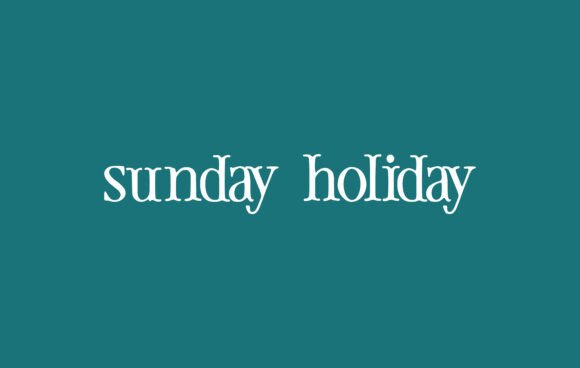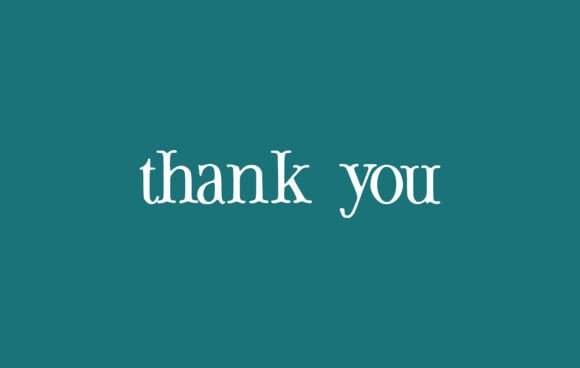
Introducing Alien Relic Font: The Ultimate Handwritten Font for Creative Designs
Are you tired of using the same old fonts for your designs? Look no further than the Alien Relic Font, an authentic handwritten font with a romantic touch that’s sure to take your creative ideas to the highest level. Expertly designed to be a true favorite among designers and crafters, this font is legible, versatile, and perfect for a wide range of applications.
What Makes Alien Relic Font So Special?
Alien Relic Font is more than just a font – it’s an experience. With its unique blend of elegance and whimsy, this font is sure to add a touch of magic to any design. Whether you’re working on a magazine headline, social media post, branding campaign, wedding invitation, or card, Alien Relic Font is the perfect choice. Its romantic touch and authentic handwritten feel make it stand out from the crowd, giving your designs a personal and human touch that’s hard to replicate with generic fonts.
Key Features of Alien Relic Font
- Authentic Handwritten Font: Alien Relic Font is a genuine handwritten font, crafted with love and care to give your designs a personal touch.
- Romantic Touch: With its elegant and whimsical feel, this font is perfect for designs that require a touch of romance and sophistication.
- Legible and Versatile: Whether you use it as a title or body text, Alien Relic Font is easy to read and understand, making it perfect for a wide range of applications.
- Perfect for Various Designs: From magazine headlines and social media posts to branding campaigns, wedding invitations, and cards, Alien Relic Font is the ultimate font for designers and crafters.
Why Choose Alien Relic Font?
With so many fonts available, why choose Alien Relic Font? Here are just a few reasons why designers and crafters love this font:
- Unique and Eye-Catching: Alien Relic Font is unlike any other font out there. Its unique blend of elegance and whimsy makes it stand out from the crowd, grabbing the attention of your audience and setting your designs apart.
- Easy to Use: Whether you’re a seasoned designer or a beginner, Alien Relic Font is easy to use and integrate into your designs.
- High-Quality Design: This font is expertly designed to ensure that it looks great in any application, from print to digital.
How to Use Alien Relic Font in Your Designs
Alien Relic Font is perfect for a wide range of designs, including:
- Magazine Headlines: Add a touch of elegance and sophistication to your magazine headlines with Alien Relic Font.
- Social Media Posts: Make your social media posts stand out with this unique and eye-catching font.
- Branding Campaigns: Use Alien Relic Font to create a consistent and recognizable brand identity.
- Wedding Invitations: Add a touch of romance and whimsy to your wedding invitations with this beautiful font.
- Cards and Stationery: Use Alien Relic Font to create beautiful and personalized cards and stationery.
In conclusion, Alien Relic Font is the ultimate handwritten font for designers and crafters. With its authentic feel, romantic touch, and versatility, this font is perfect for a wide range of applications. Whether you’re working on a magazine headline, social media post, branding campaign, wedding invitation, or card, Alien Relic Font is sure to take your creative ideas to the highest level. So why wait? Download Alien Relic Font today and start creating stunning designs that will leave a lasting impression on your audience.